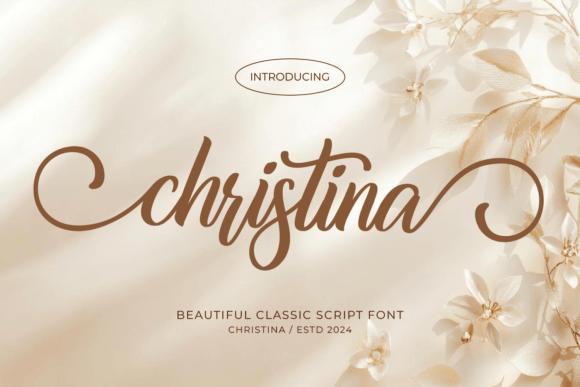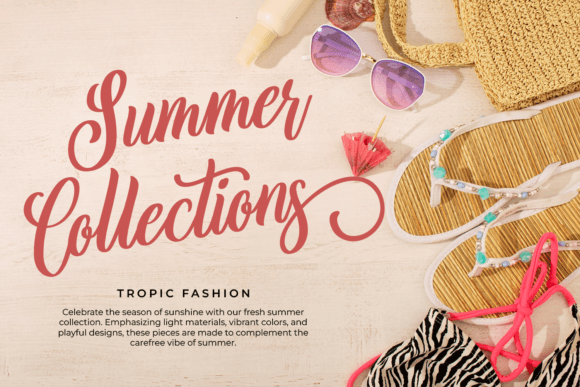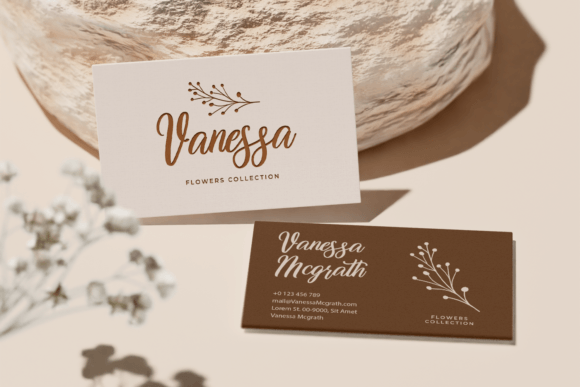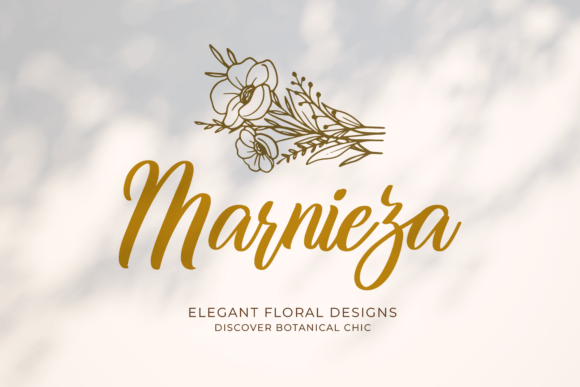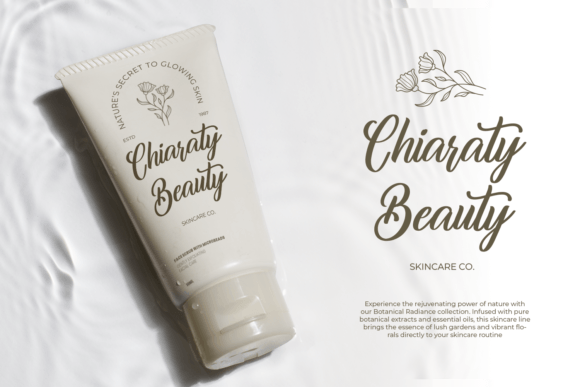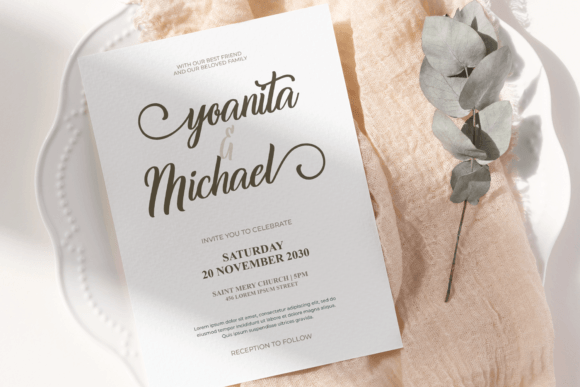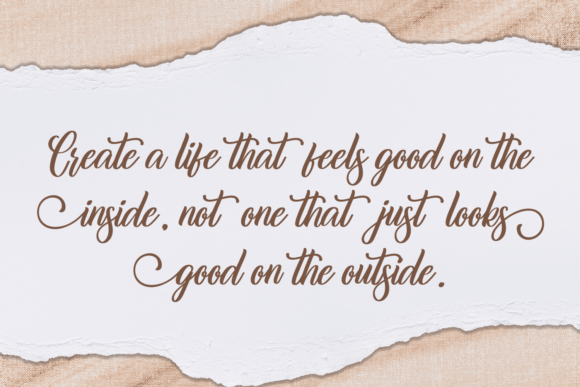
Introducing Christina Font: Elevate Your Projects with Elegance and Charm
Remember the thrill of crafting a handmade card for a loved one, carefully selecting the perfect font to match the occasion? That’s the moment when Christina Font comes alive. This beautifully crafted script handwritten font is designed to add a touch of elegance and charm to your special projects, making every word feel warm and personal.
Whether you’re working on a wedding invitation, a birthday card, or a festive celebration like Christmas, New Year, or Easter, Christina Font has got you covered. Each character comes with beginning and ending swashes, giving your text a stylish, flowing look that feels effortlessly graceful. This makes Christina Font a must-have for any designer, as it captures the essence of celebration and creativity, making every project feel special.
With its timeless elegance and adaptability, Christina Font is the perfect companion to bring your ideas to life. Whether you’re working on a professional project or a personal craft, Christina Font is the perfect tool to add a personal touch to your creations.
Christina Font Key Features
- Font Family: Christina Font is a script font, designed to resemble handwritten text.
- Size: Christina Font is available in a single weight, making it suitable for various design applications.
- Resolution: Designed for use at high resolutions, making it ideal for print and digital applications.
- Unique Characteristics: Features a flowing, cursive script with subtle flair and connection between letters, giving it a personal and elegant feel.
- Language Support: Supports a wide range of languages, including Latin-based alphabets and some Cyrillic scripts.
Designer Review: Christina Font
As a designer, I was excited to explore the Christina Font, and I must say it’s a decent addition to any project. ✨ The font’s modern and elegant aesthetic makes it perfect for various applications, from branding to digital interfaces.
- ✨ Unique Character Set: The font has a unique set of characters, including many international characters, which is a plus for designers working on global projects.
- ✨ High Legibility: The font’s high legibility makes it easy to read, even at small font sizes, which is a must-have for any font.
- ✨ Wide Language Support: The font supports a wide range of languages, making it a great choice for designers working on multilingual projects.
However, there are some limitations to consider ⚠️:
- ⚠️ Limited Expressiveness: The font’s elegant aesthetic may make it feel too formal or sterile in certain contexts, limiting its expressiveness.
- ⚠️ Not Ideal for Display Use: While the font is great for body text, it may not be the best choice for display headlines or titles, where a bolder font may be more suitable.
Overall, the Christina Font is a solid choice for designers looking for a modern, elegant font. While it may have some limitations, its unique character set, high legibility, and wide language support make it a great addition to any project.
Tips for Getting the Most Out of Christina Font
Use Christina Font to add a touch of elegance and sophistication to your designs. It’s perfect for:
- Business cards and resumes
- Photography captions and quotes
Christina Font is ideal for:
- Formal events and occasions
- Professional branding and marketing
- Creating a vintage or classic look
Alternatives to Christina Font
Lato is a modern sans-serif font that is highly legible and versatile. It is ideal for use in digital design, such as websites and mobile apps, where clear typography is crucial. Lato is a good alternative to Christina Font for designers who want a clean and minimalist look.
Comparison to Christina Font: Lato is more modern and minimalist compared to Christina Font, which has a more classic and elegant feel. Lato is also more versatile and suitable for a wider range of applications.
Montserrat is a geometric sans-serif font that is inspired by urban architecture. It is ideal for use in bold headings and titles, where a strong and modern look is desired. Montserrat is a good alternative to Christina Font for designers who want a font with a strong and urban feel.